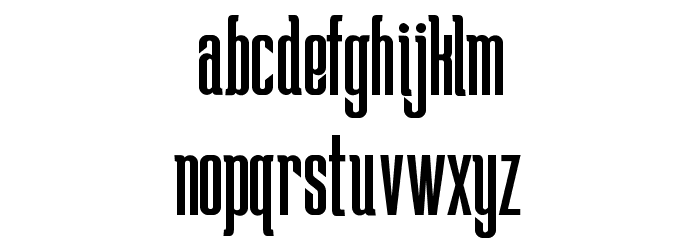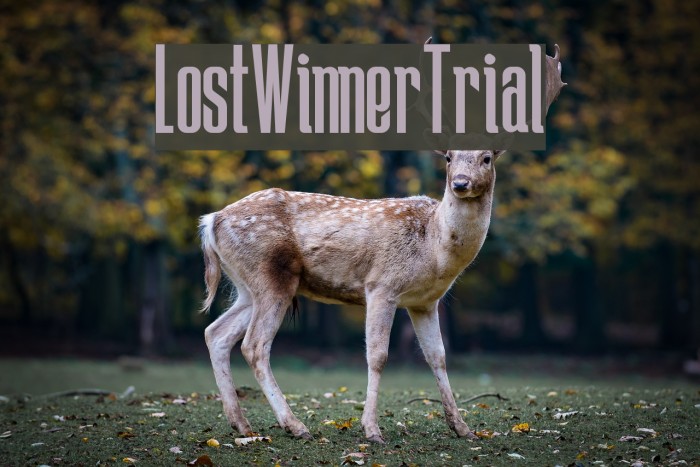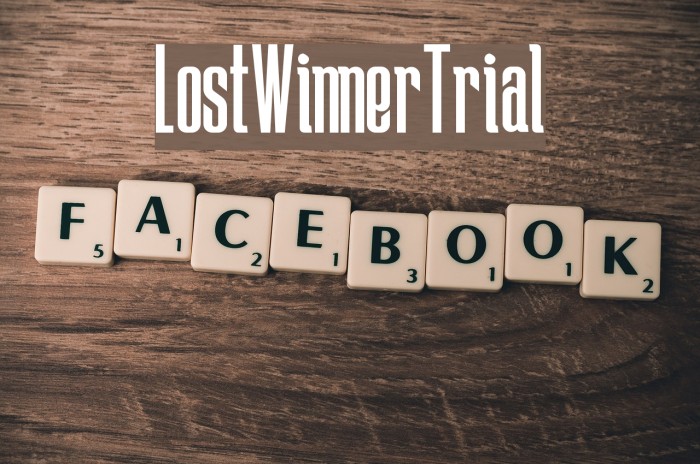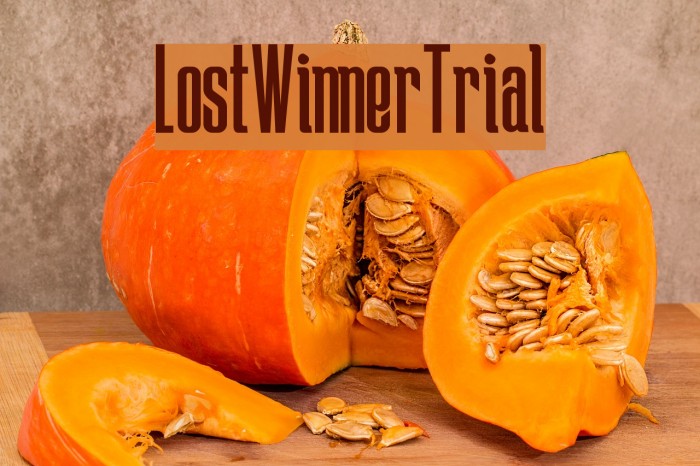
LostWinner-Trial Font
This font features a bold and condensed style with a strong vertical emphasis. The uppercase letters are tall and narrow, creating a striking and impactful appearance. The lowercase letters maintain a similar condensed form, ensuring consistency across the typeface. The overall design is modern and geometric, with clean lines and sharp edges. The characters are tightly spaced, enhancing the compact and cohesive look. This font's high contrast between thick and thin strokes adds to its dynamic and eye-catching nature, making it suitable for attention-grabbing headlines and titles.
A bold, condensed font with high contrast and a modern, geometric style.
- Font: LostWinner-Trial
- No. of Characters:: 67
- Proposed Projects: Ideal for use in posters, logos, branding, and editorial design where a strong visual impact is desired.
- Category: Sans-Serif
- Character Spacing: Tight